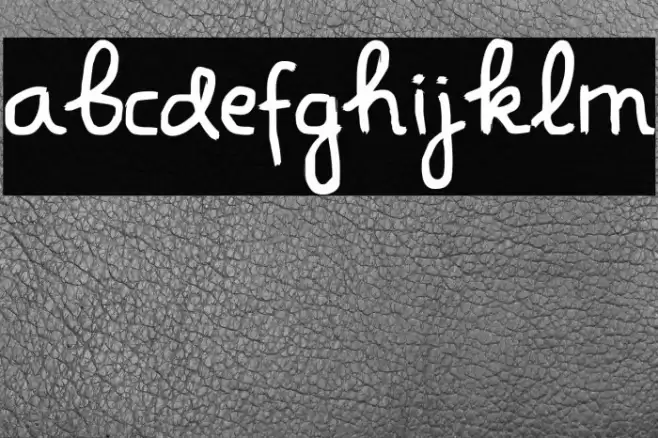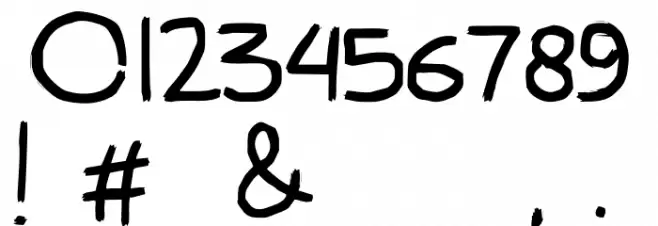
Don Butique Font
Don Butique Description
This font features a playful and casual handwritten style, characterized by its bold and slightly uneven strokes. The letters have a whimsical and informal appearance, with a slight slant that adds to its dynamic feel. The uppercase and lowercase letters maintain a consistent style, with rounded edges and a friendly, approachable look. The numbers and special characters follow the same playful aesthetic, making it suitable for designs that require a personal touch. The overall appearance is both charming and lively, making it ideal for creative projects.
A playful, bold handwritten font with a casual and dynamic style from Uncategorized fonts.
- Proposed Projects: Ideal for greeting cards, children's books, playful branding, and casual invitations.
- Overall Style: Casual, Playful
- Use Case: Logos, Headlines, Informal Text